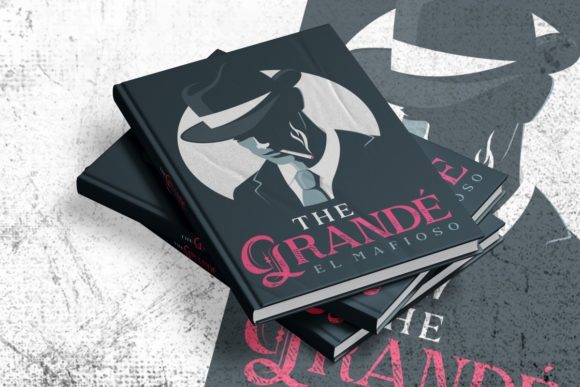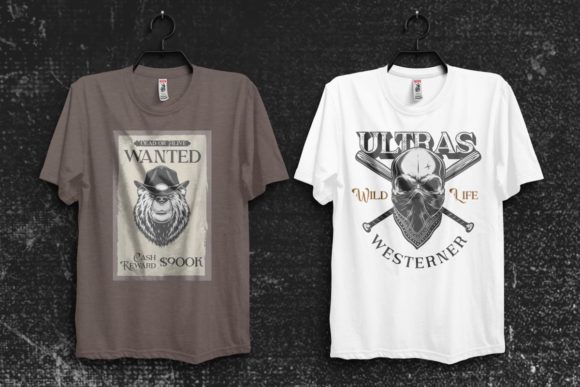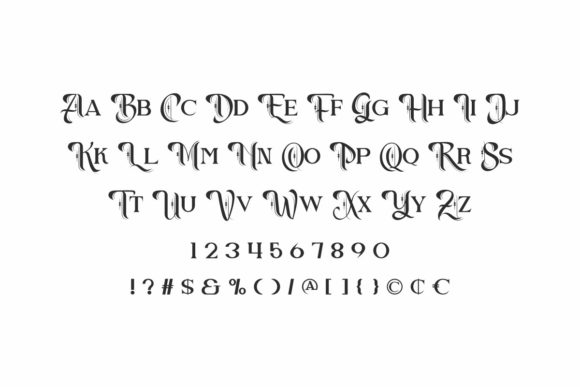
Introduction to Angel Bandit Font
Angel Bandit is an elegant display font with distinct letter shapes.
The font is inspired from the medieval era with its own uniqueness that can bring classic luxurious styles It is perfect for many projects including : branding design, clothing, headings, barbershop style, logos, products packaging, and more.